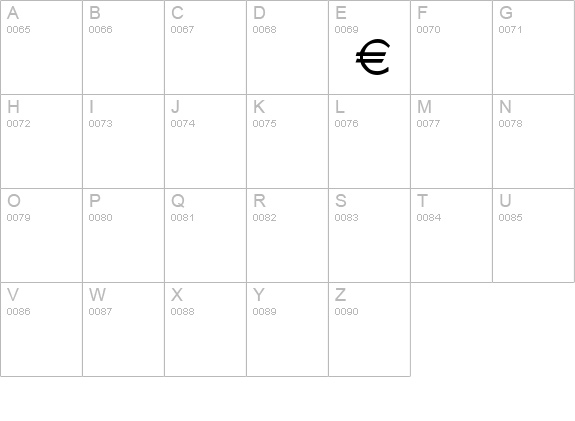
Euro Symbol Font Details
The Euro Symbol font is a sleek and modern typeface designed specifically for displaying the euro currency symbol with elegance and clarity. Its clean lines and sharp edges make it ideal for any design project that requires a professional touch. This font is not only stylish but also versatile, making it perfect for use in both print and digital media. Best of all, the Euro Symbol font is available for free download at FontsMarket.com, allowing you to easily incorporate this sophisticated typeface into your work without any cost. Whether you're creating a financial report, designing a website, or adding a special touch to your personal projects, the Euro Symbol font is a great choice that will help you stand out from the crowd. Download it today and add a touch of European flair to your designs!